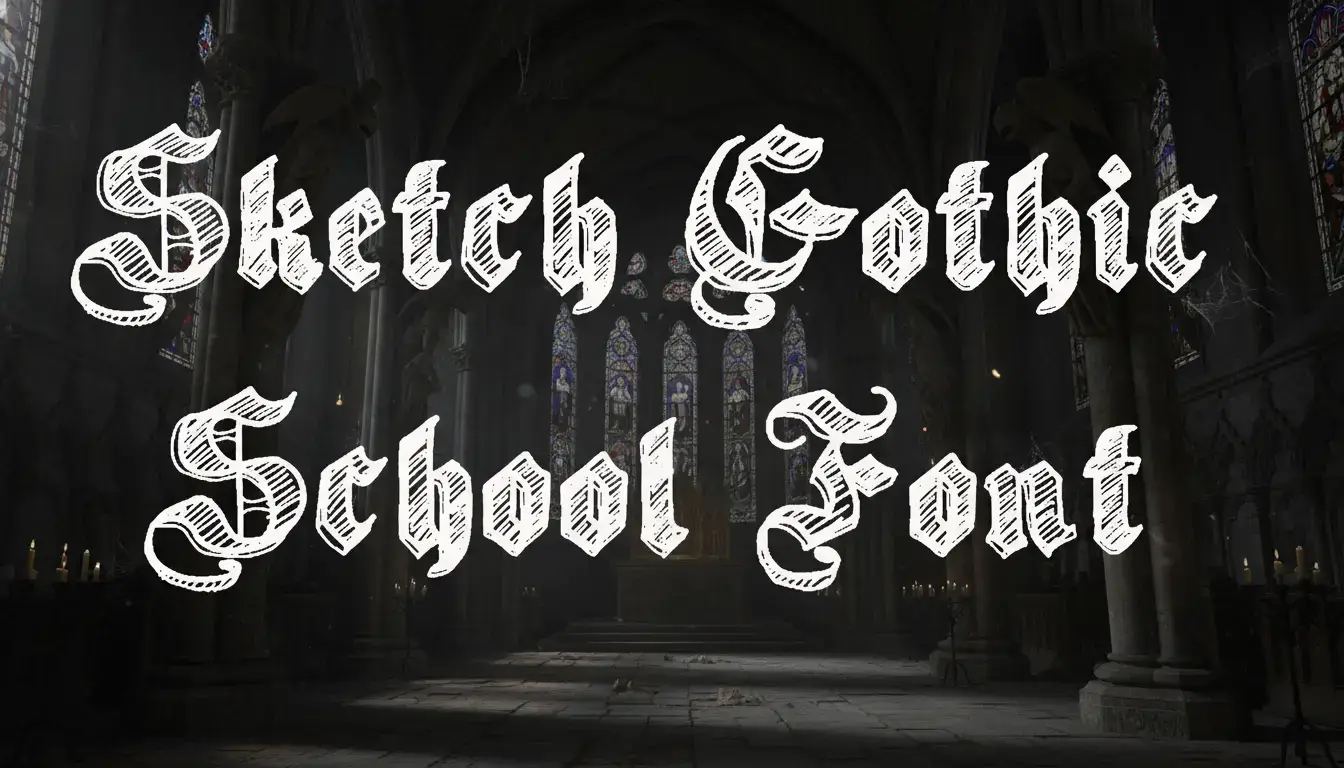
Sketch Gothic School Font
Sketch Gothic School
Sketch Gothic School is a gothic font created by Galdino Otten. Sharp, dark and dramatic, it follows the blackletter tradition of old European manuscripts. It's a free download, and you can try it with your own text in the preview above first.
What You Can Type With Sketch Gothic School
Sketch Gothic School covers the full alphabet in upper and lowercase, plus all ten numbers, so you can set names, dates and prices without switching fonts. Common punctuation such as &, !, ? and @ is included as well. It also has the accented letters you need for Spanish, French, German, Portuguese and Italian.
Where Sketch Gothic School Works Best
Designers usually reach for fonts like Sketch Gothic School when they're making tattoos, metal band logos and dark fantasy titles. Blackletter is very hard to read in all caps, so type in normal upper and lowercase.
Does Sketch Gothic School support accented letters?
Yes. Sketch Gothic School includes the accented letters needed for Spanish, French, German, Portuguese and Italian, so it works for more than just English.